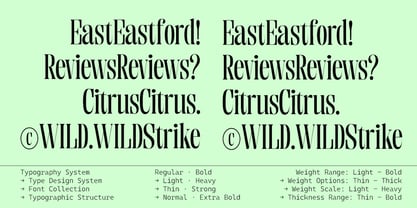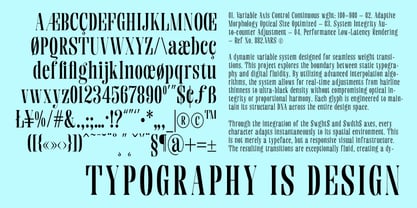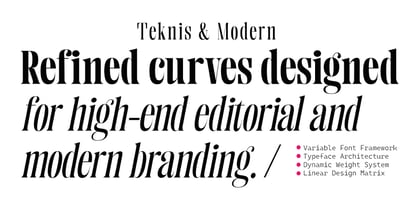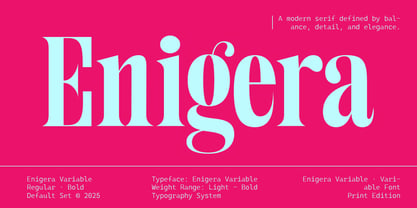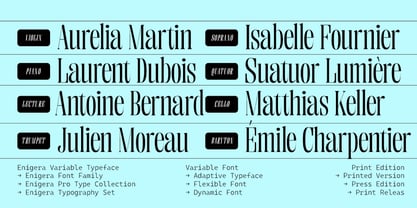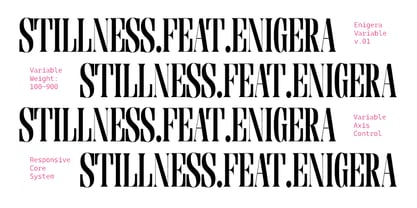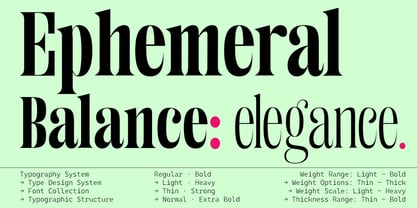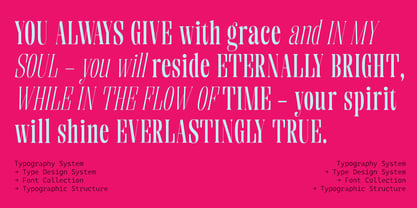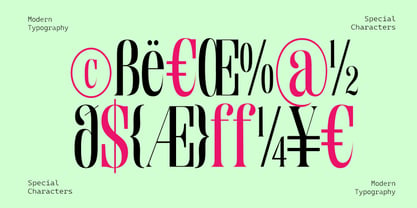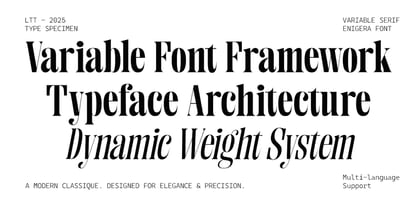
Enigera
La familia tipográfica Enigera fue diseñada por Muhammad Nasir y publicada por Aqeela Studio. Enigera contiene 128 estilos y opciones de paquete familiar. Más información sobre esta familia
Enigera Variable: A Dialogue Between Form & Friction Enigera is a high-end variable serif typeface designed for those who demand ultimate precision in typography. Merging classical elegance with a modern architectural framework, this font system is engineered to thrive in luxury branding, sophisticated editorial layouts, and dynamic digital environments. Why Choose Enigera? 128 Masterfully Crafted Files: A massive library offering unparalleled versatility, ensuring you have the perfect weight and width for every specific design need. Dynamic Weight System: Features a continuous weight range from Light (100) to Black (900), allowing for seamless transitions and perfect visual hierarchy. Variable Axis Control: Gain total creative freedom with fluid structural control over weight and width, optimized for low-latency screen rendering and high-fidelity print. Refined Editorial Aesthetics: Characterized by its sharp, technical curves and elegant proportions, Enigera brings a "Modern Classique" feel to any project. Comprehensive Character Support: Includes a vast set of special characters, symbols, and multi-language support, making it a truly global typography solution. From the hairline delicacy of its lightest weights to the ultra-black density of its expanded forms, Enigera is not just a typeface—it is a responsive visual infrastructure for the future of design.